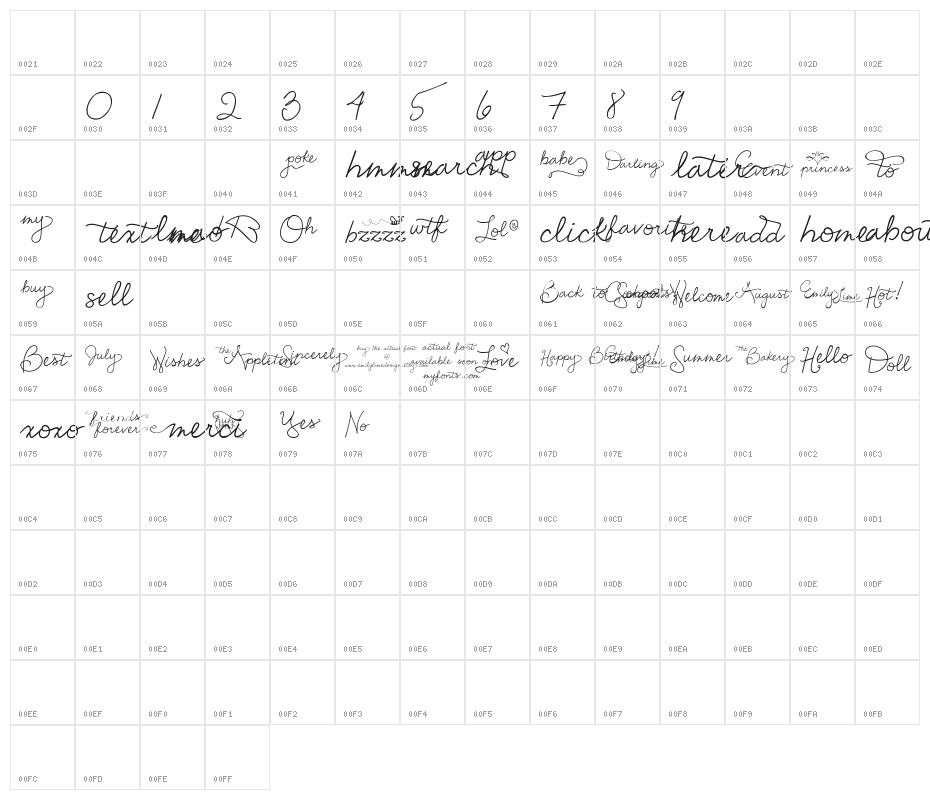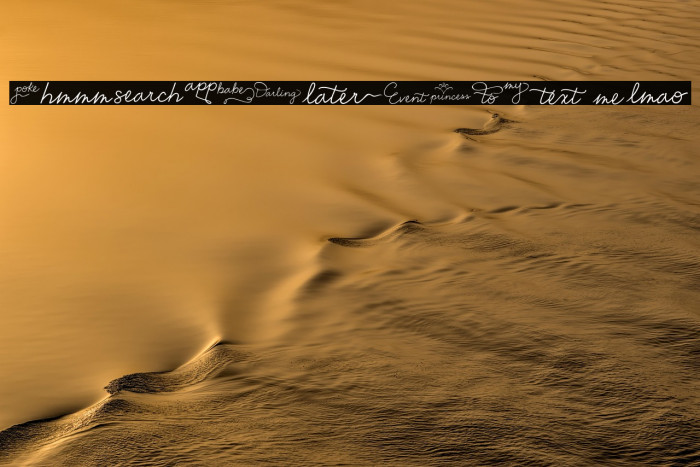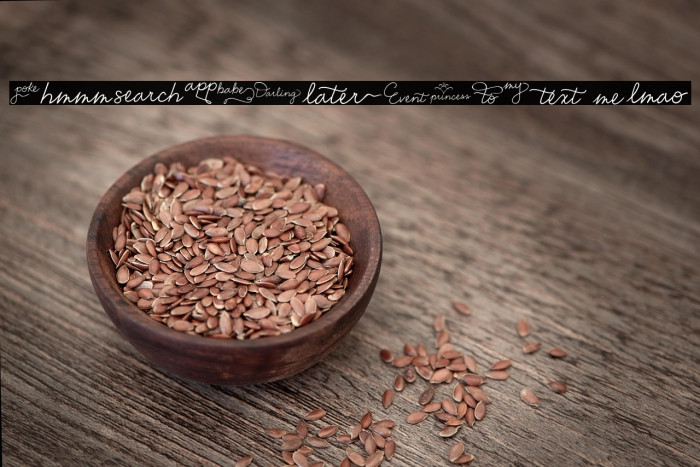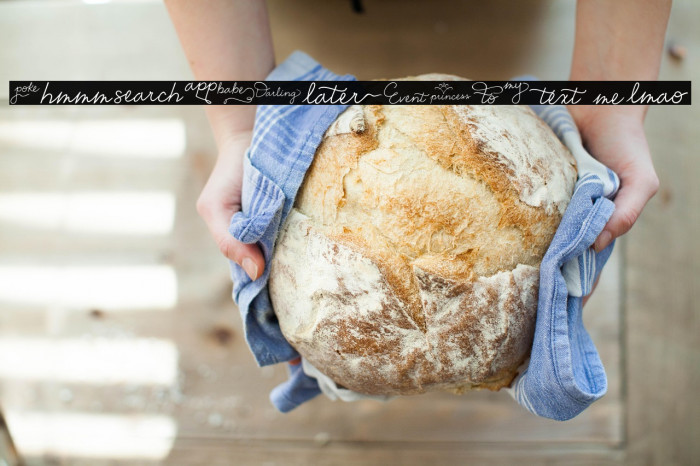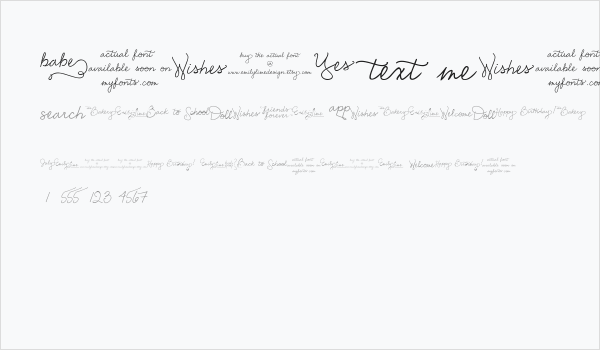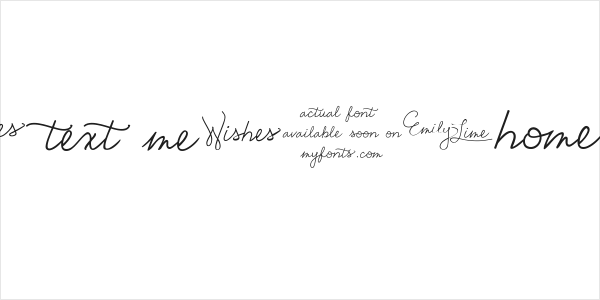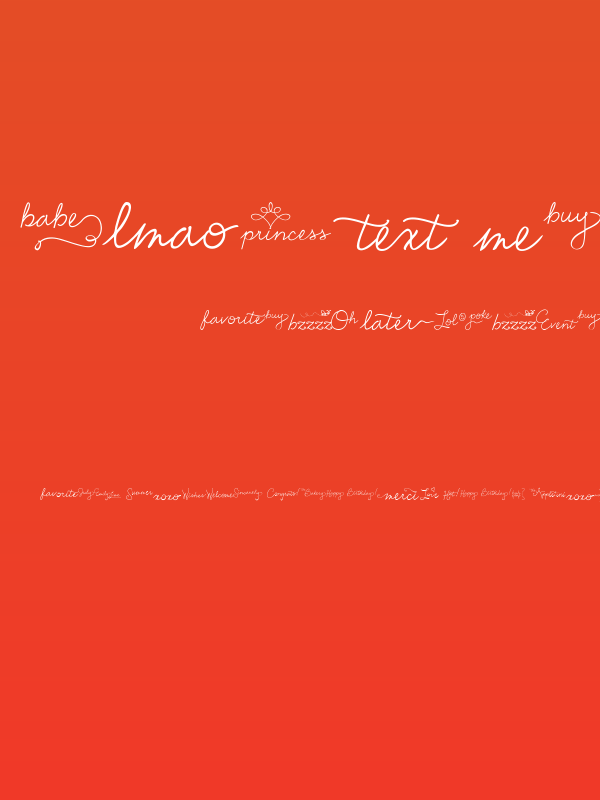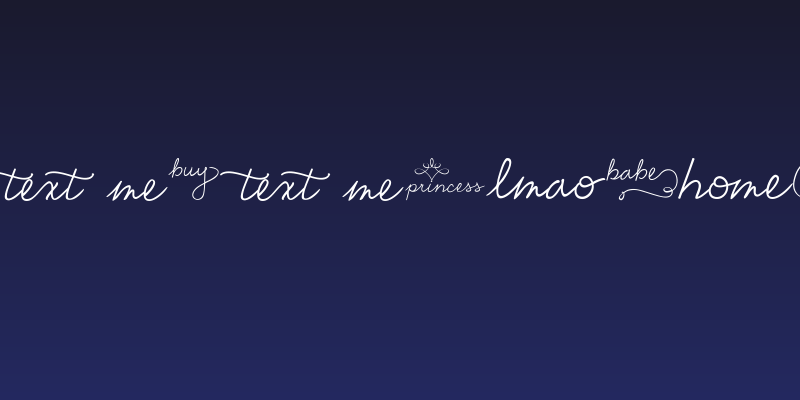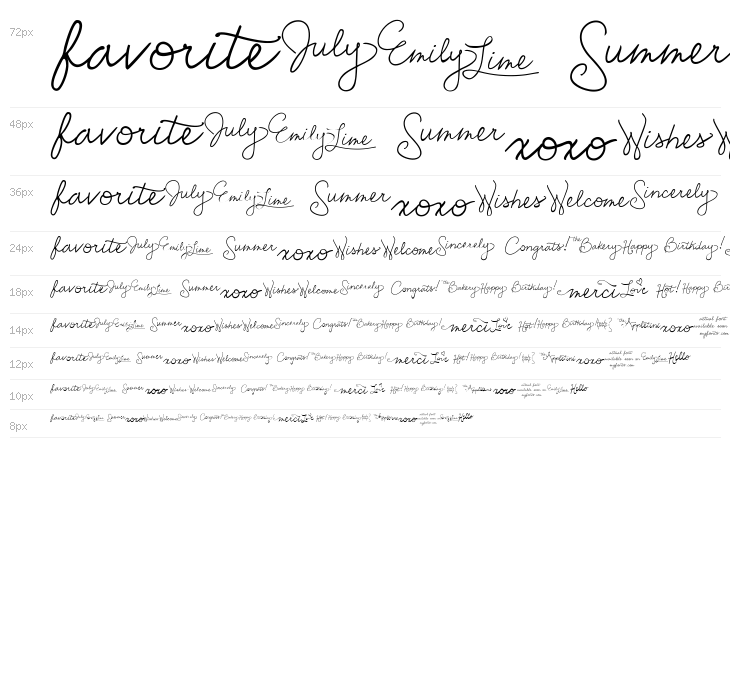
EmilyLimeWords Font
EmilyLimeWords Description
This font features an elegant and whimsical script style, characterized by its flowing, cursive letters that exude a playful yet sophisticated charm. The letters are intricately designed with varying stroke widths, creating a dynamic and lively appearance. The uppercase letters are particularly ornate, with flourishes and loops that add a decorative touch. The lowercase letters maintain a consistent style, with smooth connections and a graceful flow. Numbers are bold and slightly slanted, maintaining the overall whimsical feel. This font is perfect for projects that require a touch of elegance and creativity, such as invitations, greeting cards, or branding materials.